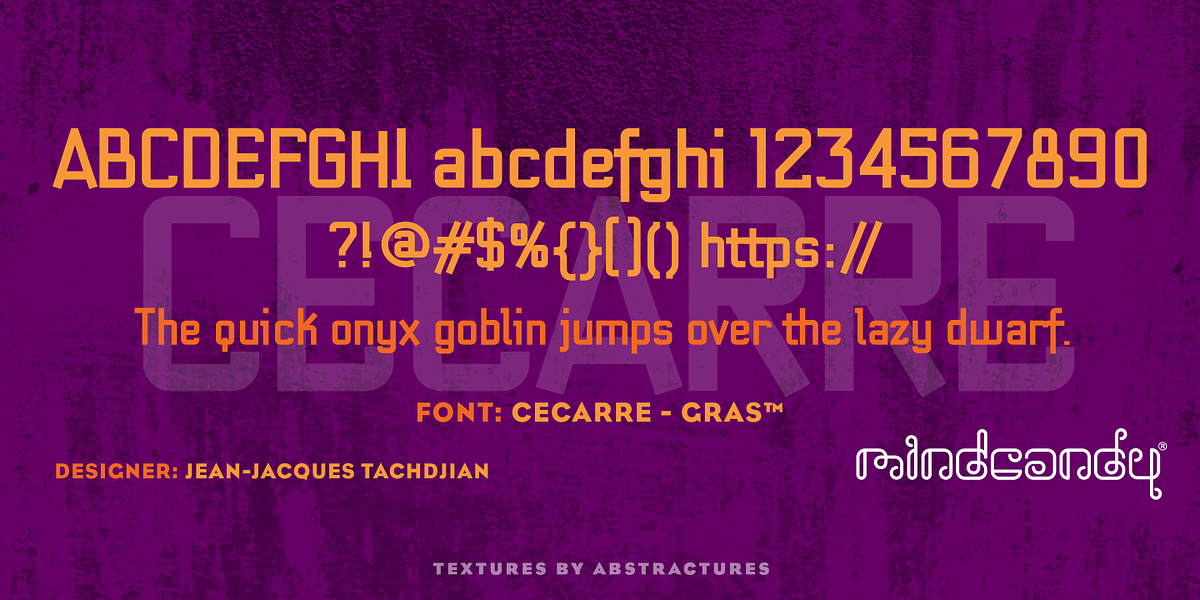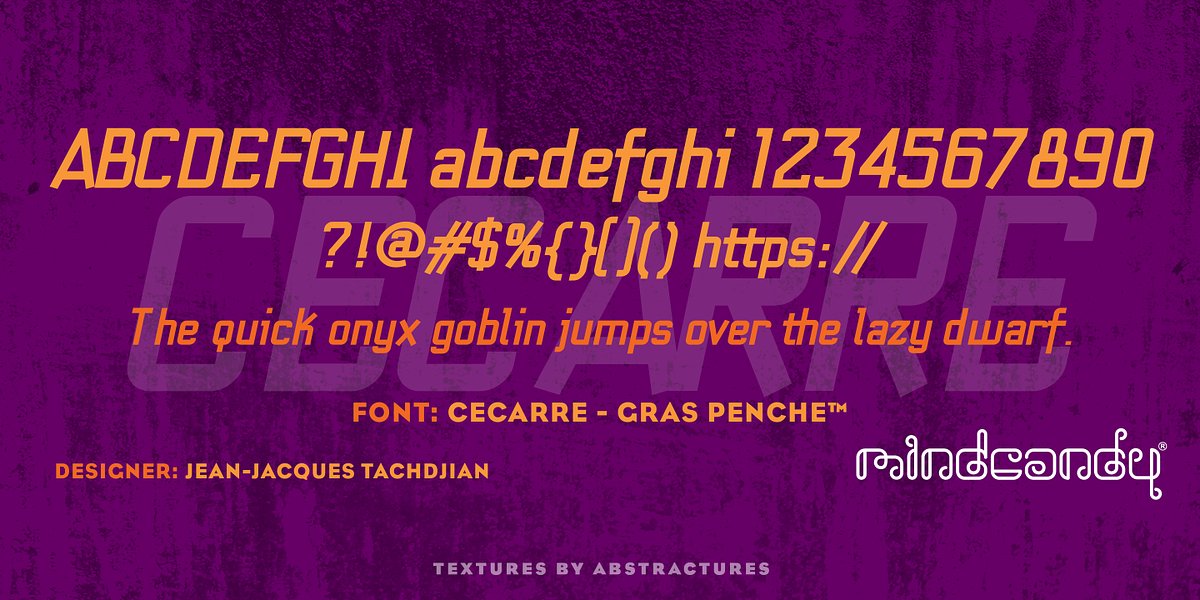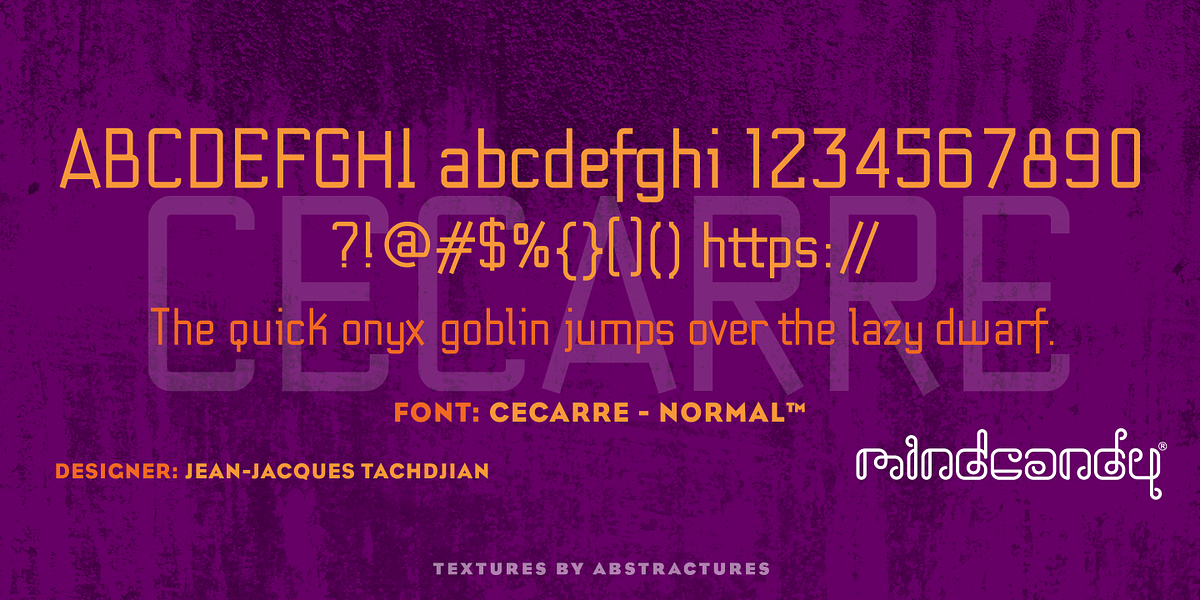
Cecarre™
This sans-serif font is classified as novelty due to its unique and playful design. It's ideal for use in branding, headlines, and display text where a modern, eye-catching aesthetic is desired.